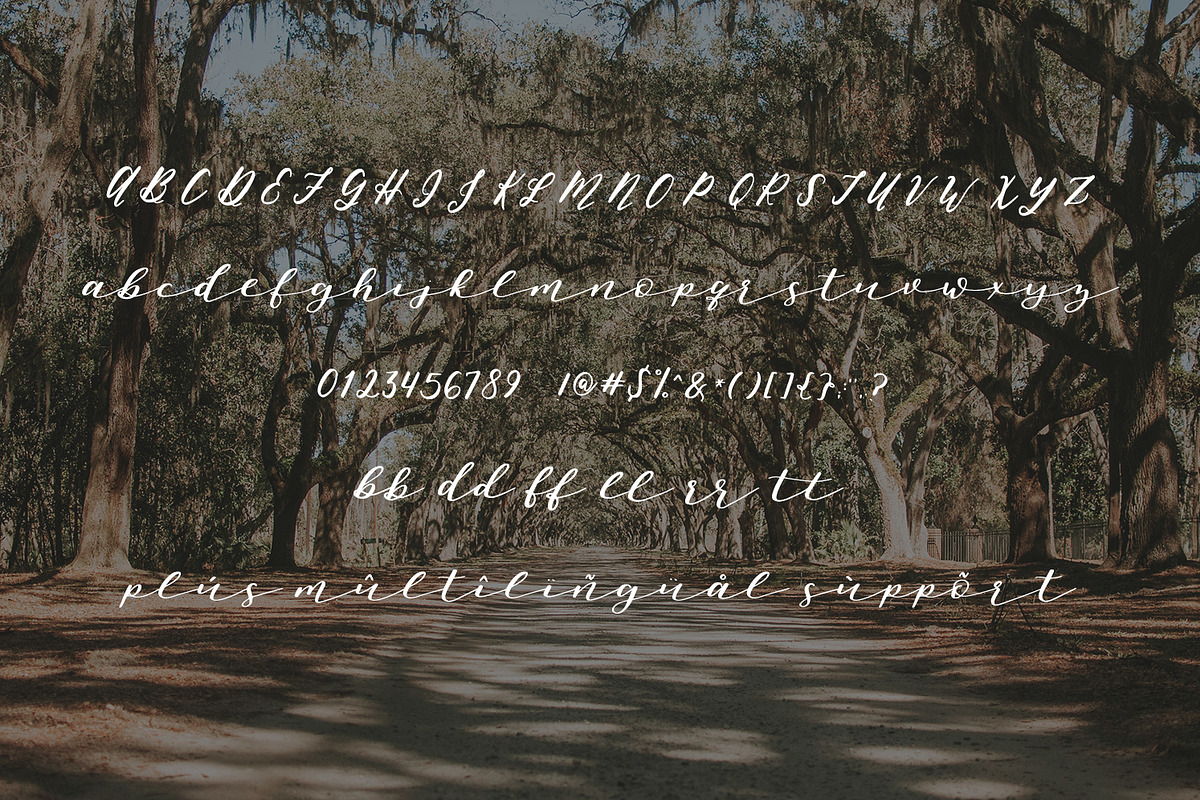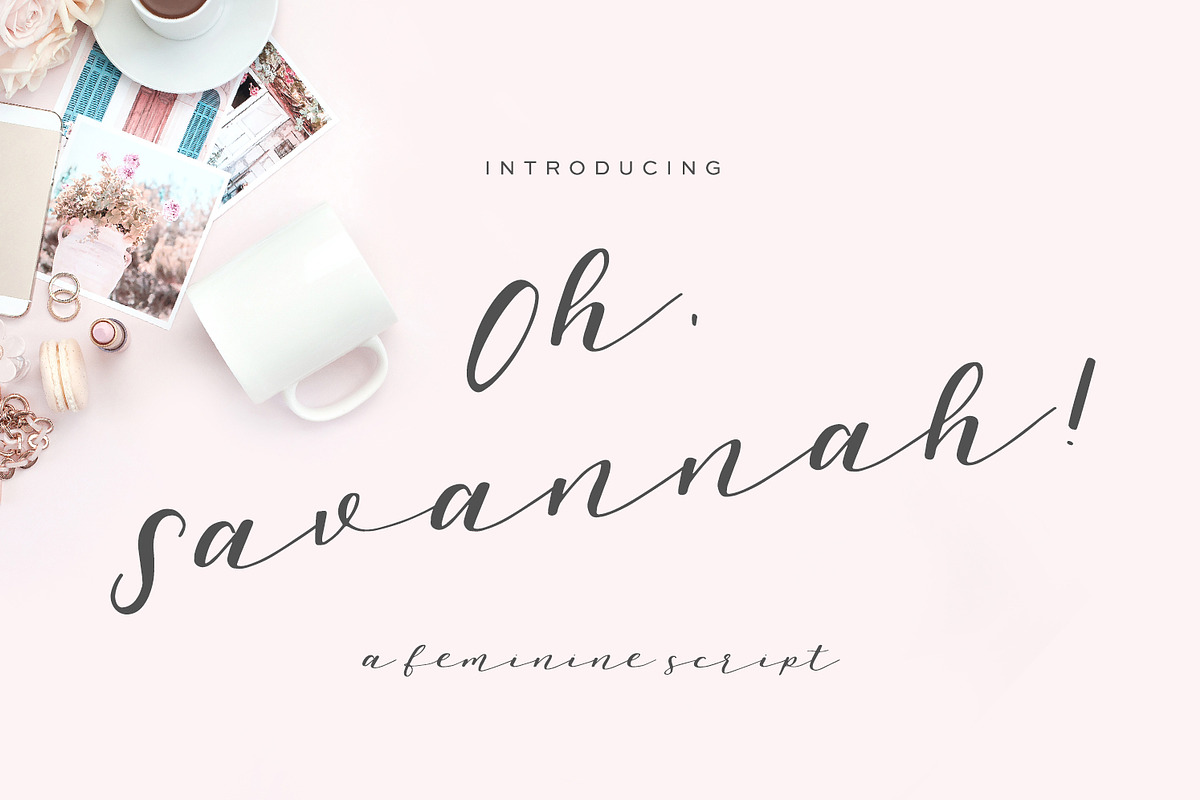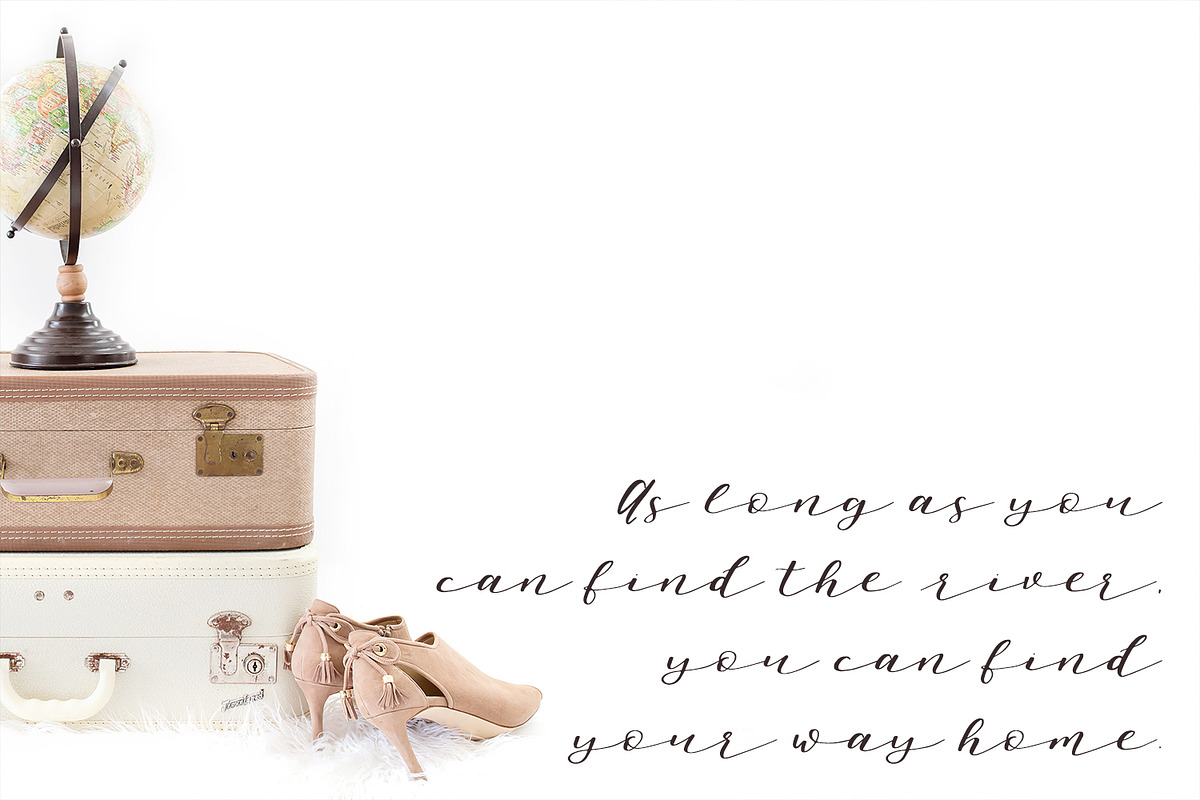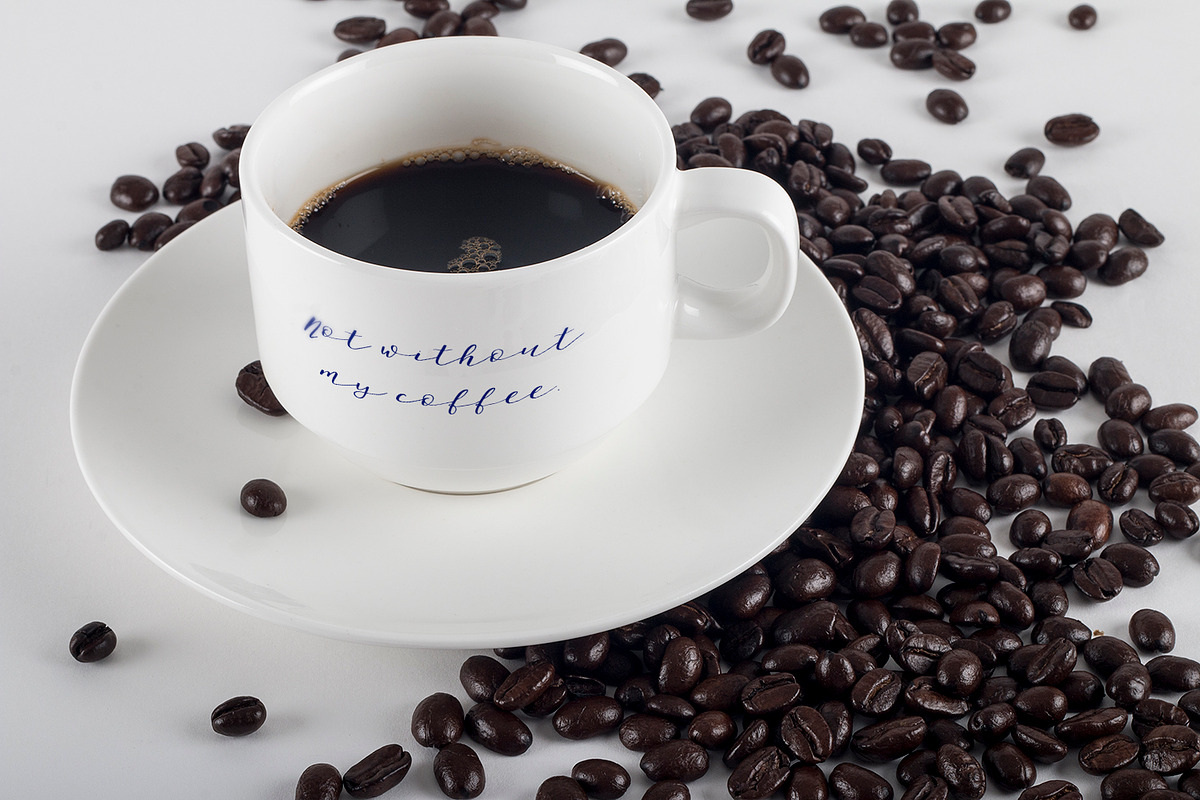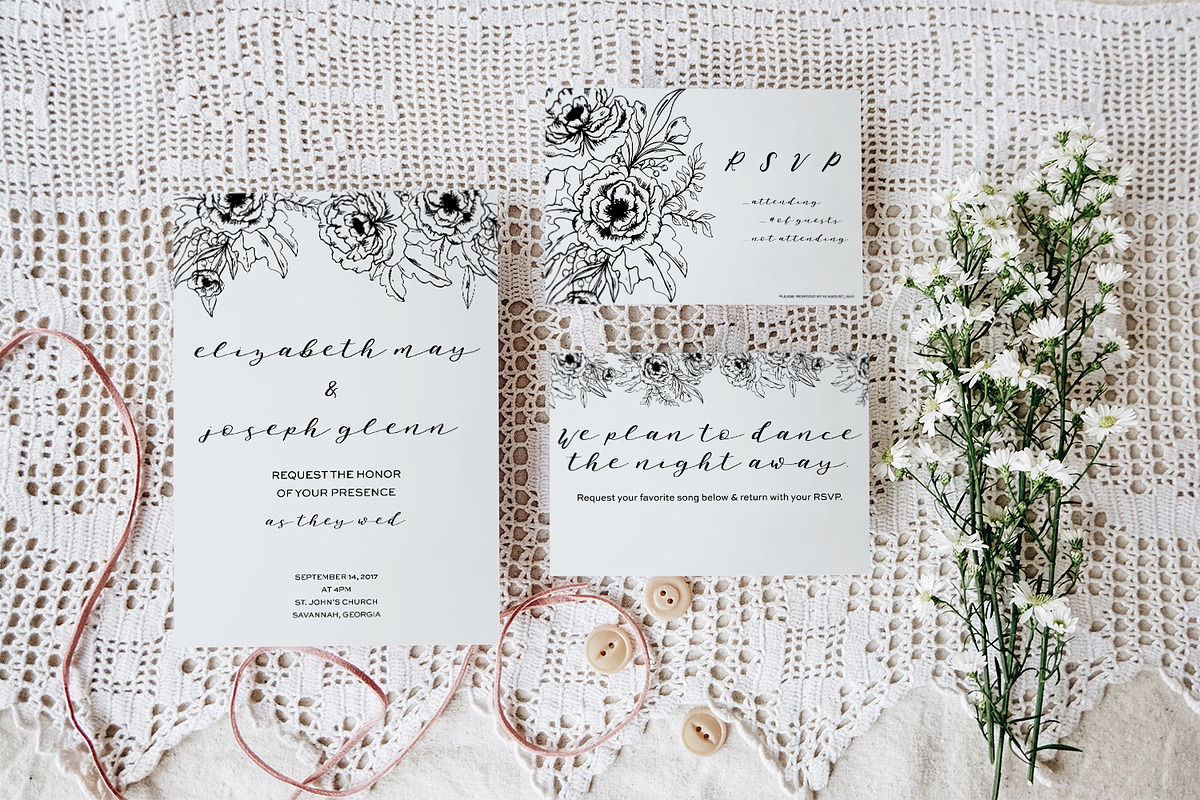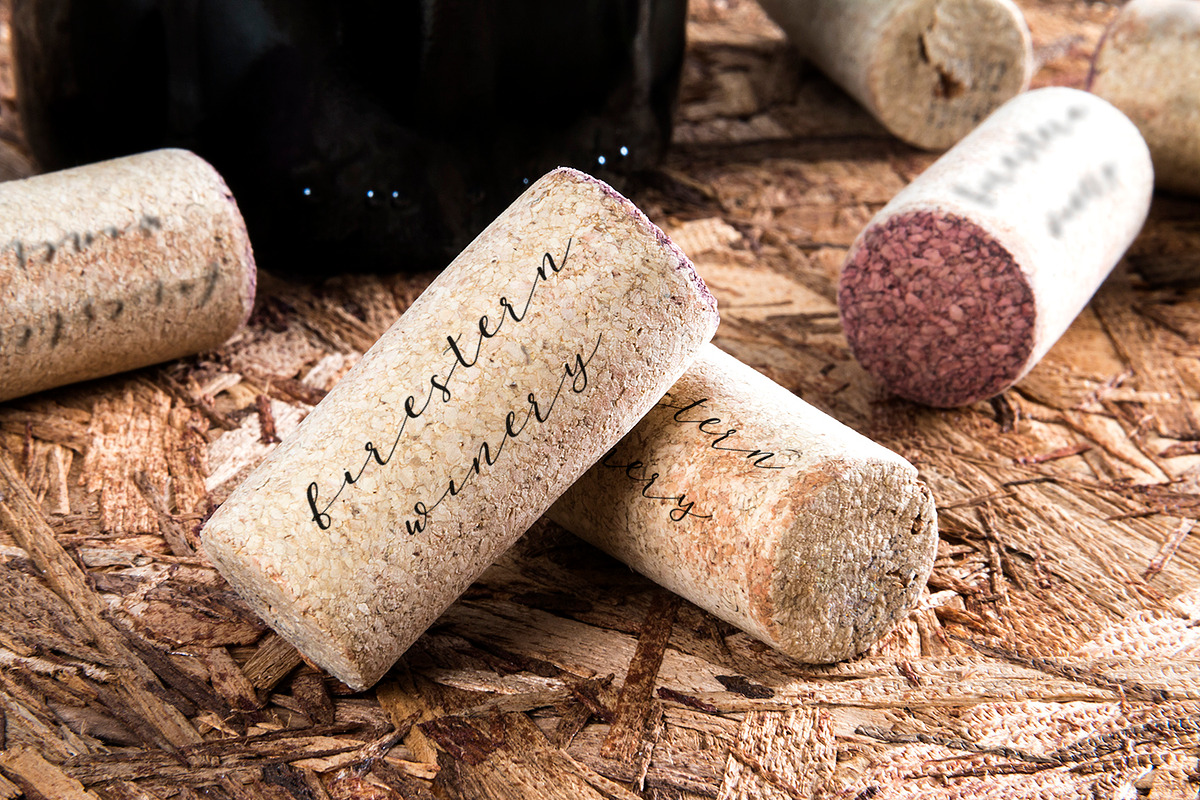
Oh Savannah Script
Oh, Savannah! is a beautiful, flowy feminine script inspired by the Southern city. Many a day & night have been spent there, full of rustic charm & unique beauty. Whether it’s a quaint little shop, a historical square, delicious food, tasty drinks, or a view of the slow-moving river, there is no shortage of inspiration. It is a picturesque location, perfect for a wedding or event…just like this font. Use for a feminine brand, beautiful invitations, or call attention to your one of a kind offering with this gorgeous script. You can also use Oh, Savannah! to mimic handwriting or a signature for certain projects.
Oh, Savannah! includes some ligatures, & Western European language support.